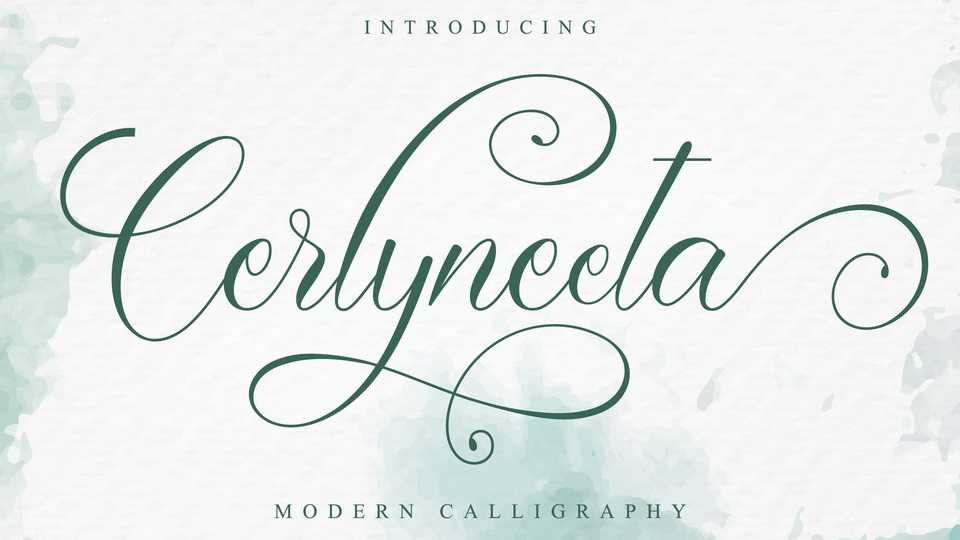
Download Cerlyneeta font, a beautiful modern calligraphy font feels equally charming and elegant. With Cerlyneeta’s incredibly versatile style it’s perfect to create gorgeous wedding invitations, beautiful stationary art, eye-catching social media posts, and much more.
Designer: Nissa Studio